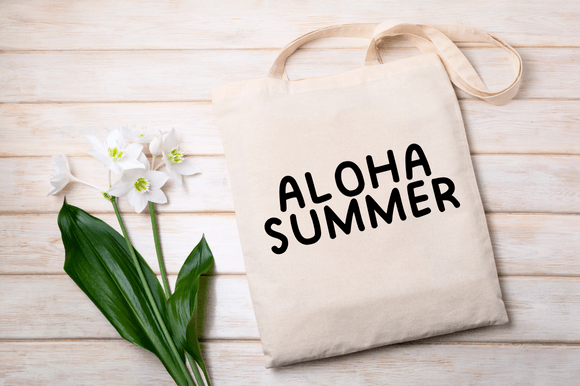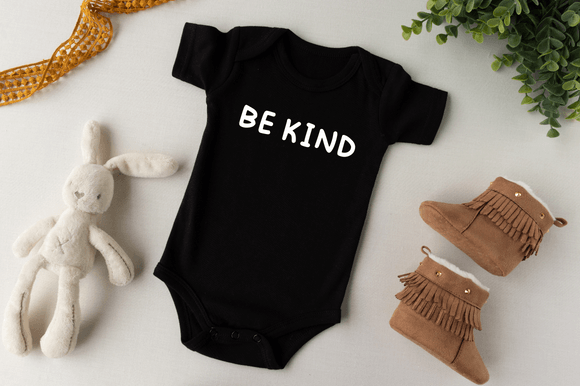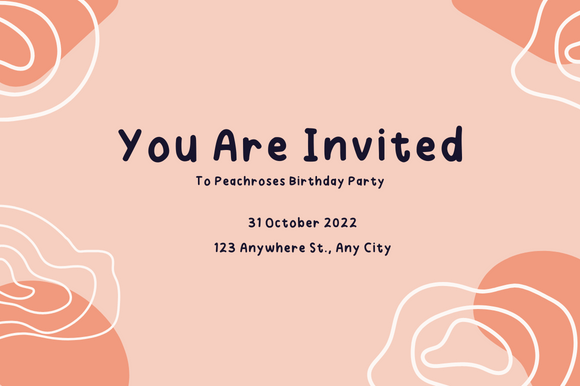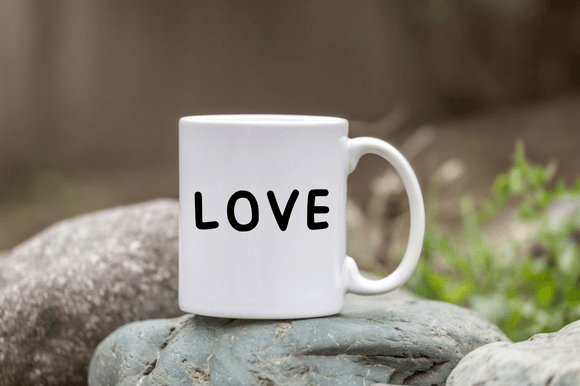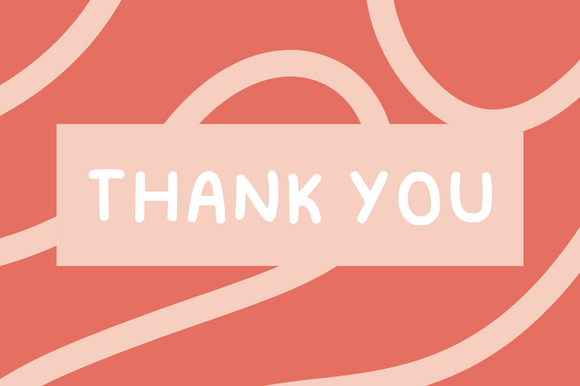
Introducing Heart Burn Font: The Ultimate Display Font for Friendly Designs
Are you tired of using the same old fonts for your designs, crafts, and digital projects? Look no further! Heart Burn Font is here to revolutionize the way you create friendly and approachable designs. This childish, easy-to-read display font is perfect for a wide range of applications, from crafts and digital design to presentations and greeting cards.
The Perfect Blend of Friendliness and Playfulness
Heart Burn Font exudes impeccable friendliness, making it an ideal choice for designers and crafters who want to add a personal touch to their work. Its playful and childish design is sure to capture the attention of your audience and leave a lasting impression. Whether you’re creating a logo, brochure, or social media graphic, this font is guaranteed to bring a smile to people’s faces.
One of the best things about Heart Burn Font is its versatility. It’s perfect for a wide range of projects, including:
- Crafts: Use Heart Burn Font to add a personal touch to your DIY projects, such as handmade cards, gift tags, and scrapbooking.
- Digital Design: Add a friendly and approachable tone to your digital designs, including social media graphics, blog posts, and website headers.
- Presentations: Make your presentations more engaging and fun with Heart Burn Font. It’s perfect for title slides, headings, and emphasis text.
- Greeting Cards: Create personalized and heartfelt greeting cards for special occasions, such as birthdays, holidays, and weddings.
Why Heart Burn Font Should Be Your Go-To Font
So, what makes Heart Burn Font so special? Here are just a few reasons why it’s about to become your favorite go-to font:
- Ease of Readability: Heart Burn Font is designed to be easy to read, even at small sizes. This makes it perfect for digital designs, where legibility is crucial.
- Friendliness: The font’s playful and childish design conveys impeccable friendliness, making it perfect for designs that require a personal touch.
- Versatility: Heart Burn Font can be used for a wide range of projects, from crafts and digital design to presentations and greeting cards.
- Uniqueness: Heart Burn Font has a unique and distinctive design that will set your designs apart from the crowd.
Tips for Using Heart Burn Font
To get the most out of Heart Burn Font, here are a few tips to keep in mind:
- Use it for Headings and Titles: Heart Burn Font is perfect for headings and titles, where you want to make a bold and friendly statement.
- Experiment with Colors: Heart Burn Font looks great in a variety of colors, so don’t be afraid to experiment and find the perfect hue for your design.
- Pair it with Other Fonts: Heart Burn Font can be paired with other fonts to create a unique and visually appealing design.
In conclusion, Heart Burn Font is a versatile and friendly display font that’s perfect for designers and crafters who want to add a personal touch to their work. Its ease of readability, friendliness, and uniqueness make it an ideal choice for a wide range of projects. So why not give it a try and see how it can elevate your designs to the next level?